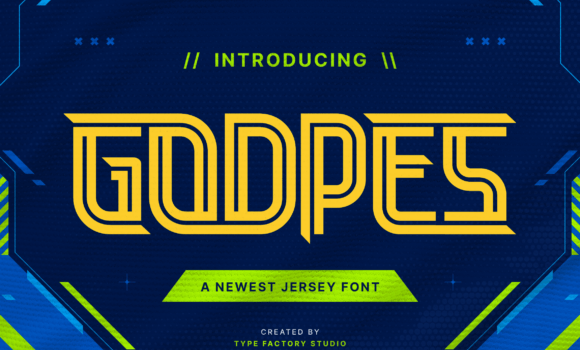
godpes
Godpes Font – Free Download Introduction to Godpes Font Godpes is a modern sport jersey display font designed with bold geometric shapes and sharp line details. 📸 Preview Gallery 6 images 📌 Product Name Godpes Font 👤 Author TypeFactory 📂